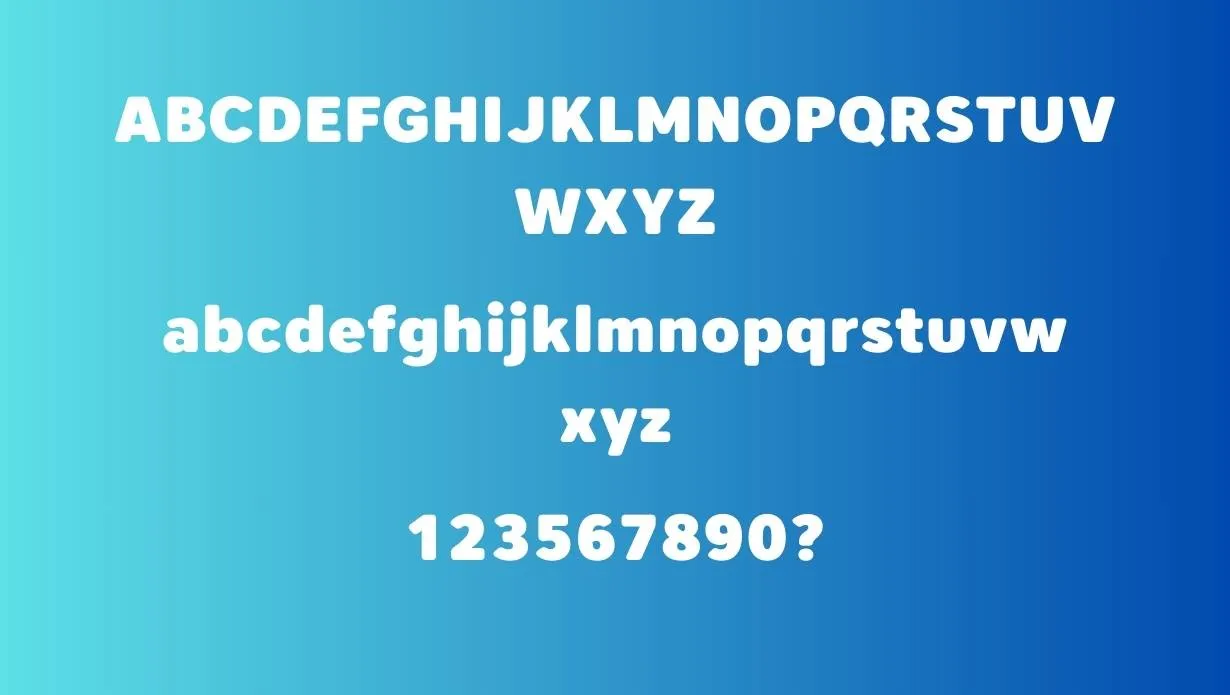
Core Sans AR Font is a modern and sleek typeface known for its clarity and versatility. It’s frequently used in branding, web design, and various design applications where a clean and sophisticated appearance is desired.
The font’s simplicity and readability make it a valuable tool for creating professional design work. To achieve an exclusive and eye-catching design, it is essential to pair this font with the Mantika Sans Font.
| Name | Core Sans AR Font |
| Designer | Hyun-Seung Lee |